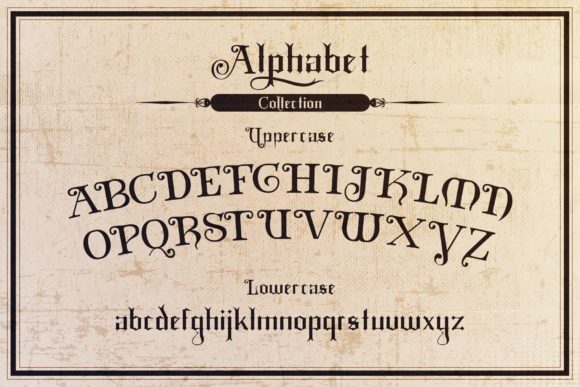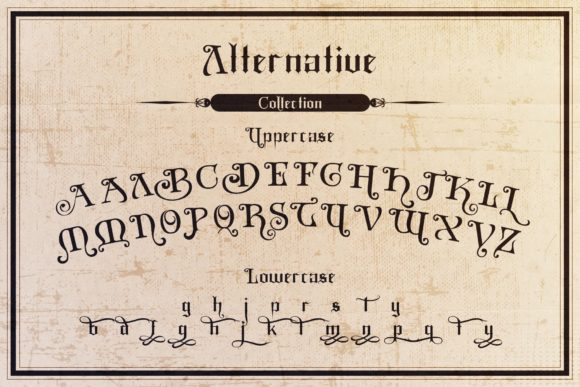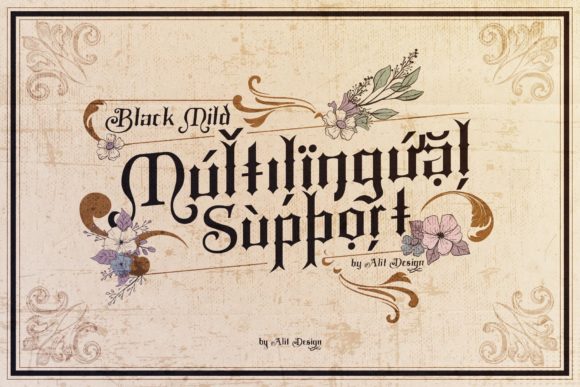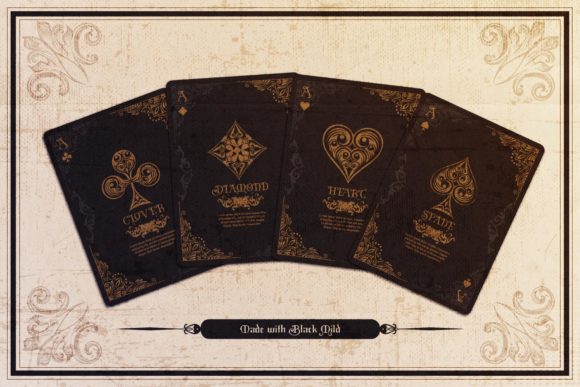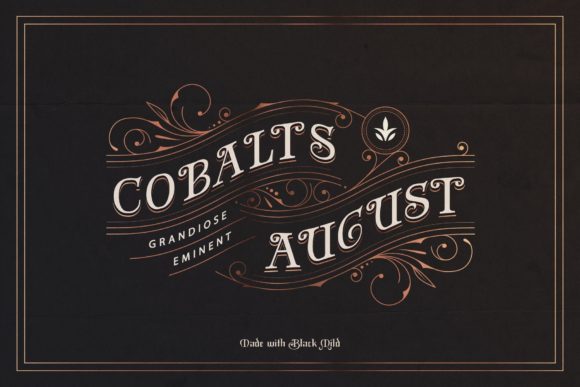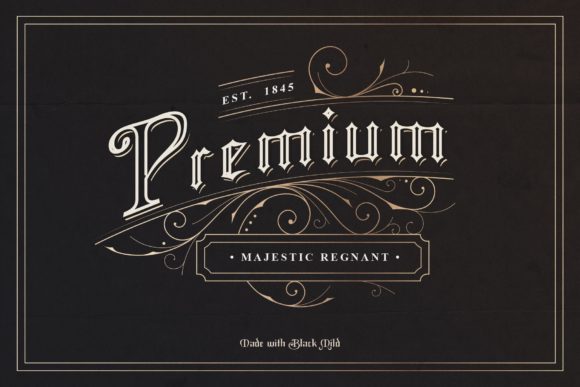
Black Mild Font
Black Mild is a distinct blackletter font. It is PUA encoded which means you can access all of the glyphs and swashes with ease! Add it confidently to your favorite creations and let yourself be amazed by the outcome generated.